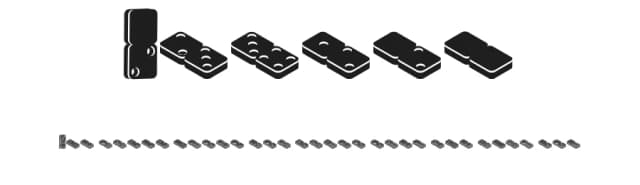
About Domik Font
Domik is a dingbat font designed by hertoy. It includes 105 glyphs, a bold weight, TTF (TrueType) format, and 105 languages. Domik is free to download; check the license details on this page before commercial use. Dingbat fonts like Domik work best for icons, ornaments, bullet points, and decorative accents.
Domik Font is a versatile dingbats font that works for both headings and body text. Pair it with a contrasting sans-serif or serif font to add visual interest and a clear distinction between titles and body copy.
Domik Font
by hertoy